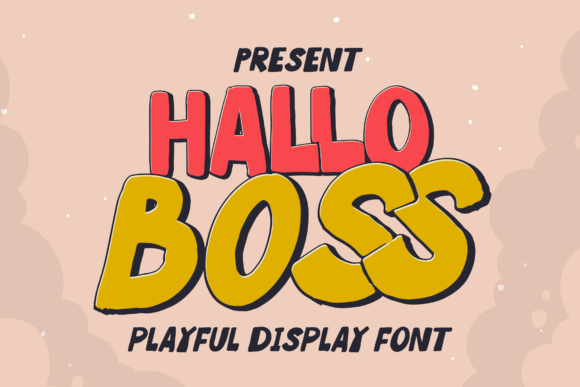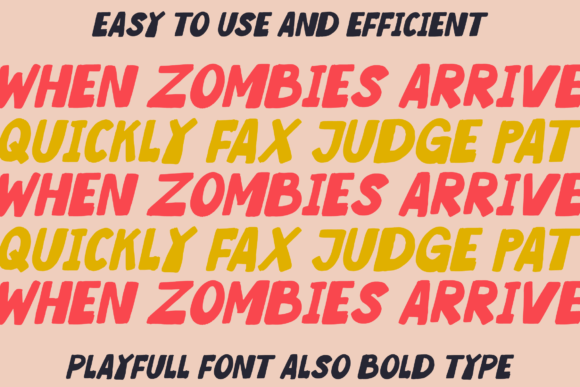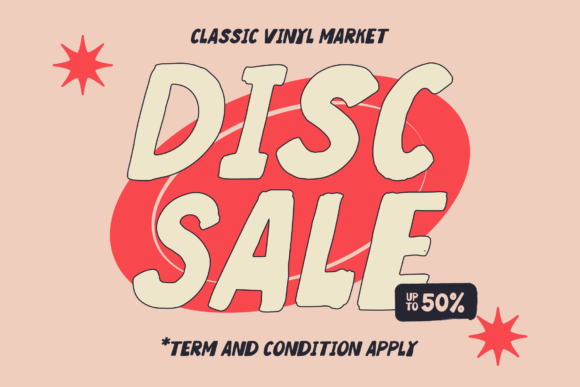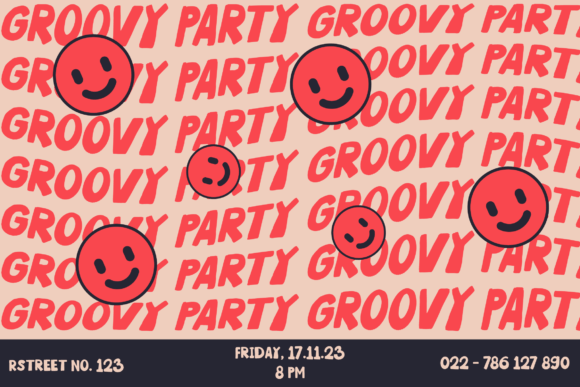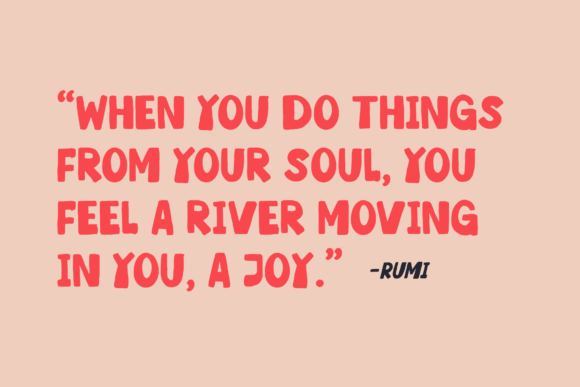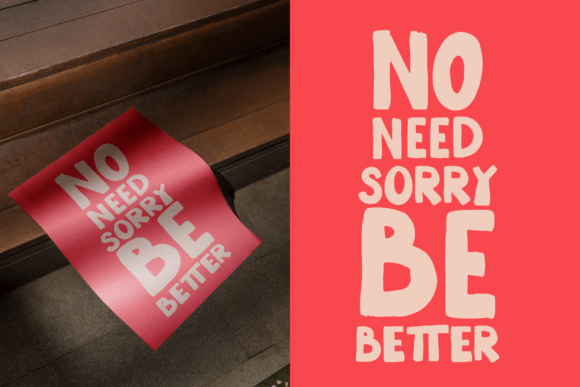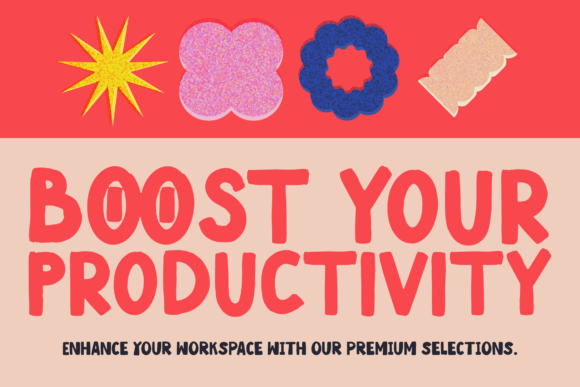
Get Ready to Shine with the Perfect Font for Your Next Project!
Have you ever been brainstorming ideas for a project, and suddenly, a spark of creativity hits you? You envision a bright, cheerful sign that grabs attention and puts a smile on people’s faces. That’s exactly what Hallo Boss Font is all about – bringing a playful touch to your designs.
Hallos Boss Font is a fun and lively display font that’s perfect for adding a friendly vibe to your signs, posters, and creative projects. Its bold letters and unique shapes make it a standout choice for designers who want to add a personal touch to their work. With Hallo Boss Font, you can create eye-catching designs that are sure to leave a lasting impression. Whether you’re working on a project for a client or just want to express your creativity, this font is a valuable asset to have in your design toolkit.
Hallo Boss Font Key Features
- Font Family: Hallo Boss Font is a sans-serif font family designed to convey a sense of professionalism and friendliness. It is suitable for various applications, including corporate branding, digital interfaces, and print materials.
- Unique Characteristics: Hallo Boss Font features a distinctive rounded edge design, making it easily readable and approachable. The font also includes a range of weights, from light to bold, allowing for flexibility in design applications.
Hallo Boss Font Review
At first glance, the Hallo Boss Font seems like a fun and quirky addition to any design project. Here are some aspects that work well:
- ✨ The font is highly customizable, allowing for a range of colors and effects to be applied.
- ✨ The font is available in a range of weights, making it suitable for use in both headings and body text.
- ✨ The font is highly legible, even at small font sizes.
However, there are some limitations to be aware of:
- ⚠️ The font may not be suitable for use in formal or professional contexts, due to its playful and informal style.
- ⚠️ The font may be difficult to read in certain font sizes or colors, particularly for users with visual impairments.
- ⚠️ The font is not available in as many languages as some other fonts, which may limit its usability in multilingual projects.
Overall, the Hallo Boss Font is a fun and creative addition to any design project. While it may not be suitable for every use case, it is a great option for projects that require a playful and informal tone. With some careful consideration of its limitations, the Hallo Boss Font can be a valuable asset in any designer’s toolkit.
Getting the Most Out of Hallo Boss Font
To get the most out of Hallo Boss Font, use it for bold, eye-catching headings and titles. This font is ideal for creating a playful and modern aesthetic in your designs.
Hallo Boss Font is commonly used in:
– Branding and marketing materials
– Print materials such as business cards and brochures
Alternatives to Hallo Boss Font for Designers
Bebas Neue is a modern sans-serif font designed by Ryoichi Tsunekawa. It is ideal for use in digital media, such as websites, mobile apps, and video games. Bebas Neue has a similar feel to Hallo Boss Font but is more versatile and has a wider range of applications.
Comparison: Bebas Neue is more condensed and has a more modern feel compared to Hallo Boss Font, making it suitable for use in digital media where space is limited.